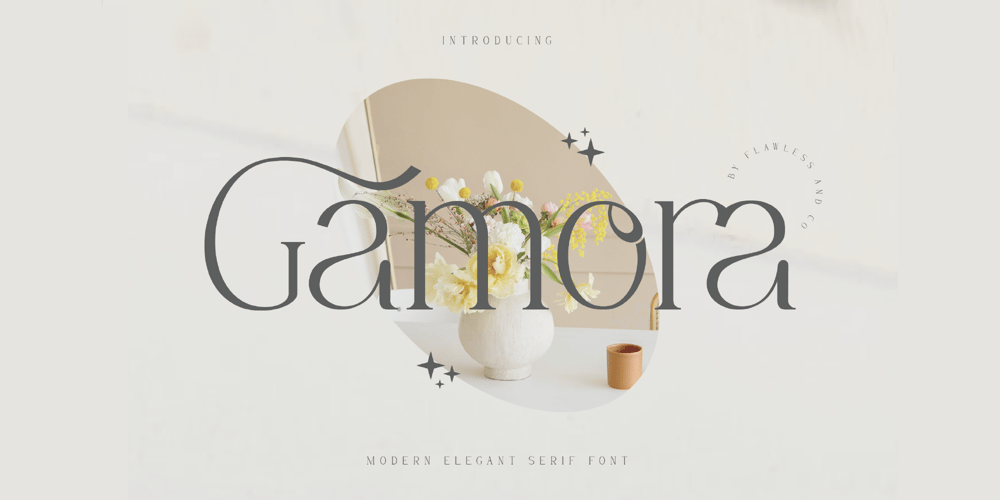
Gamora Font Family was designed by Achmad Yani and published by Flawlessandco. Gamora contains 1 styles and family package options. Introducing “Gamora” – A Modern Elegant Serif Font. Discover the perfect balance of modernity and elegance with “Gamora,” a stunning serif font that offers not only refined character but also a wealth of alternatives and ligatures to enhance your design versatility.There’s some connected letters and some alternates that suitable for any graphic designs such as branding materials, t-shirt, print, business cards, logo, poster, t-shirt, photography, quotes .etcThis font support for some multilingual. Also contains uppercase A-Z and lowercase a-z, alternate character, numbers 0-9, and some punctuation.If you need help, just write me! Thanks so much for checking out my shop!